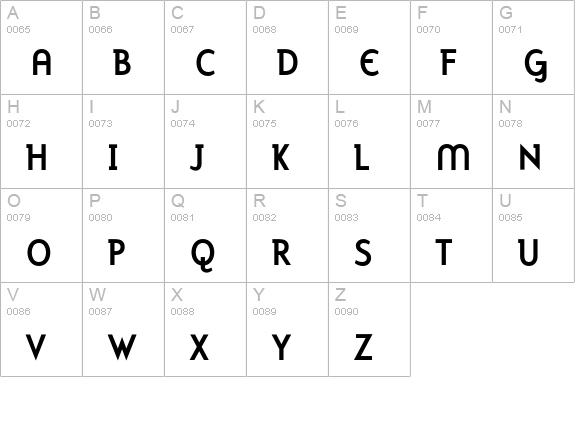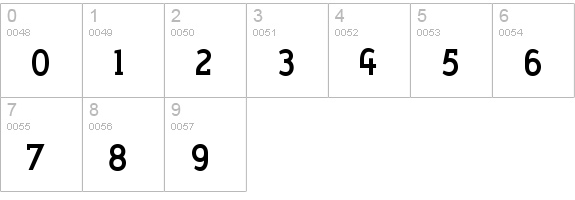
MercuryAlternativeBold Font Details
MercuryAlternativeBold font is a striking and versatile typeface that exudes modernity and sophistication. With its bold and commanding presence, this font is perfect for making a statement in any design project. Whether you're creating a logo, poster, or website, MercuryAlternativeBold will ensure your message is delivered with impact and style. What sets MercuryAlternativeBold apart is its unique blend of sleek lines and sharp edges, giving it a distinct and memorable appearance. The font's bold weight makes it particularly well-suited for headlines and titles, allowing you to grab the viewer's attention instantly. Best of all, MercuryAlternativeBold is free to download at FontsMarket.com, making it easily accessible for designers and creatives looking to add a touch of sophistication to their projects. Don't miss out on this opportunity to enhance your designs with the bold and modern MercuryAlternativeBold font.